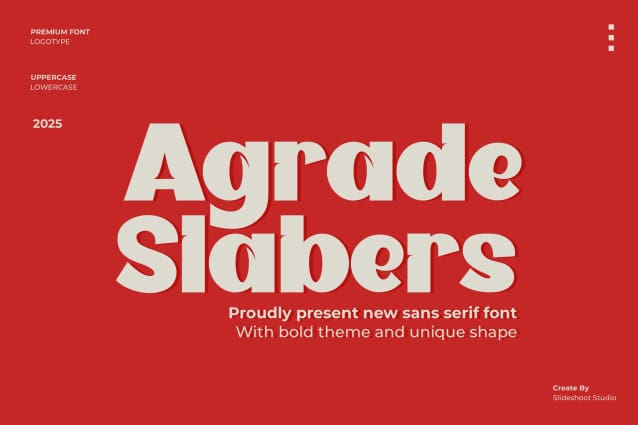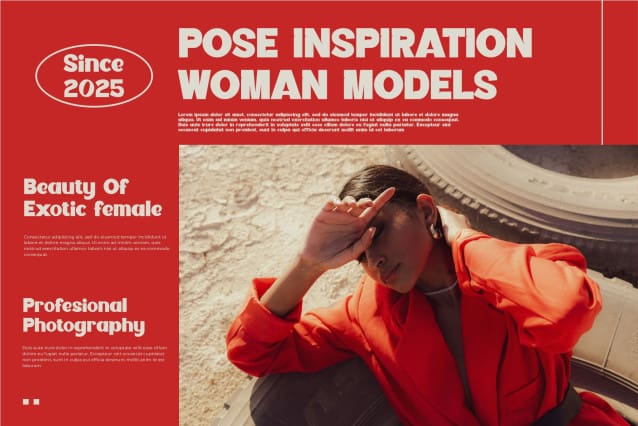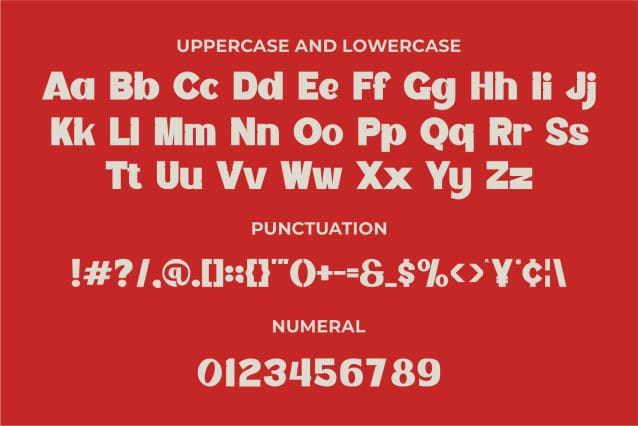
Agrade Slabers Font
Agrade Slabers is a sans serif bold Font modern, trendy, bouncy and cute display font. It has a unique character with wood theme. It is perfect to be combined with invitation card designs, company logos, movie titles, movie names, business cards, book titles, brand names and various other designs.